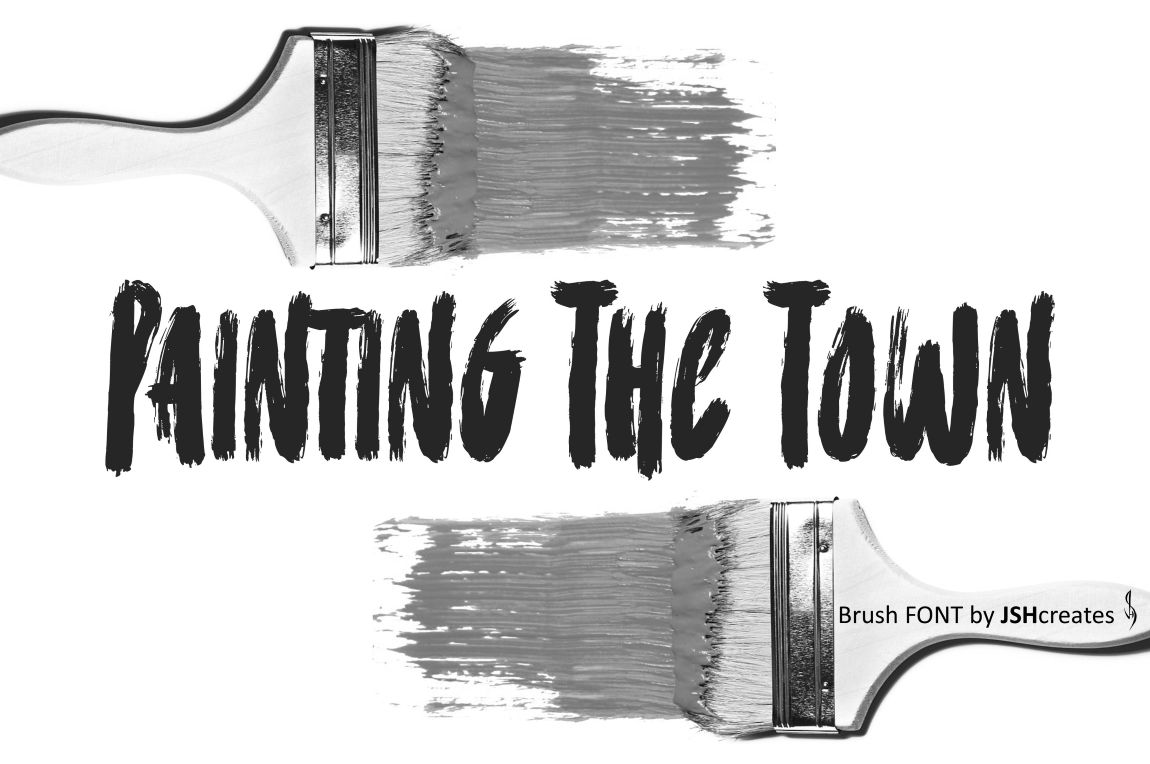
Painting The Town Font
Paintbrush font. “Painting The Town”. Perfect for advertising and display purposes, including banners, book covers, shirts, posters, logos and much more!
This is an ALL CAPS font, including numbers and minimal punctuation.